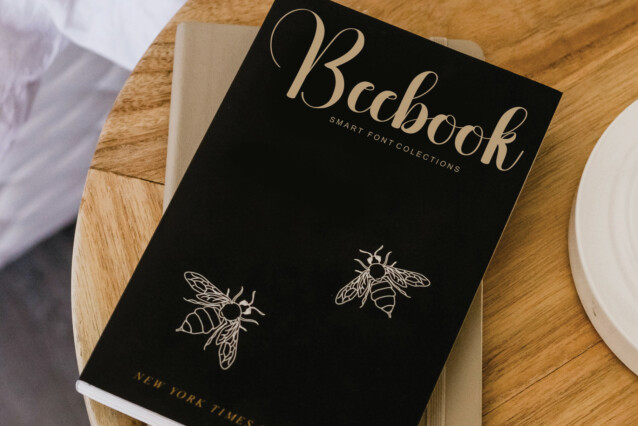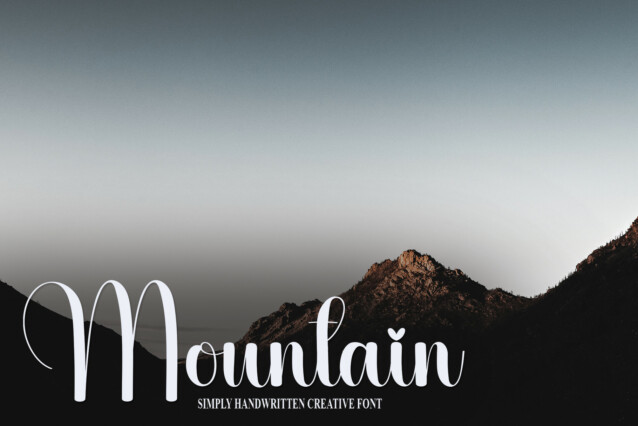
Umbrella Script Font
Umbrella Script Font is a sweet and friendly handwritten font. Cute and fun, this font is ideal for writing wedding invitations, cards, or any other design that might need a fun touch!